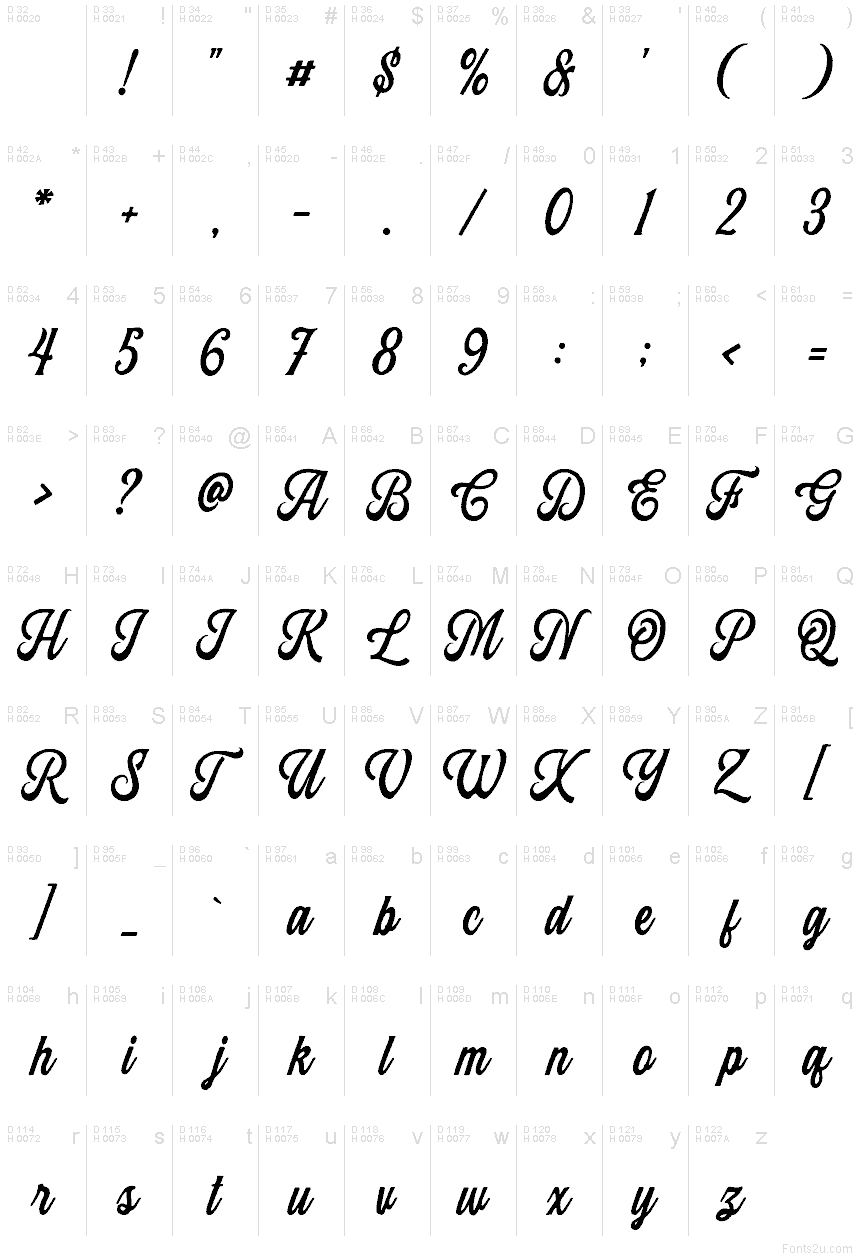
Rocket Thunder Script font by Blankids is a free brush script typeface with a confident, sign‑painter slant and inky, velvety curves. Its strokes glide and taper like wet paint, linking letters in a smooth rhythm that feels brisk yet polished. Subtle weight shifts and tight connections give headlines a bold sheen without getting messy.
Using Rocket Thunder Script, branding and packaging sing, especially for cafes, barbers, craft goods, and retro‑leaning boutiques. It also shines on posters, t‑shirt lettering, social headers, and event invitations where you want a hand‑drawn flourish with real presence. Pair this free font with a clean geometric sans to keep body copy crisp and let the script lead.